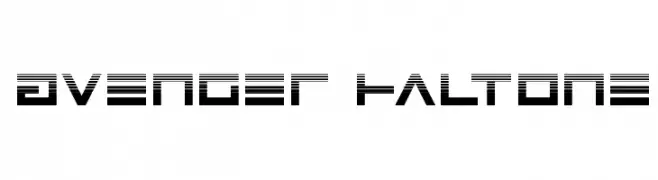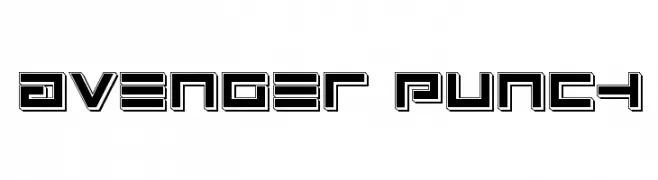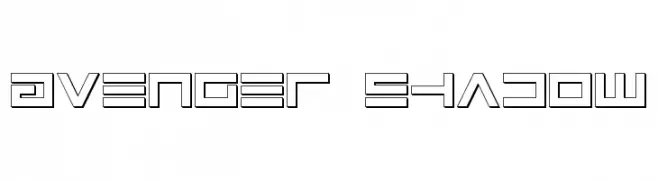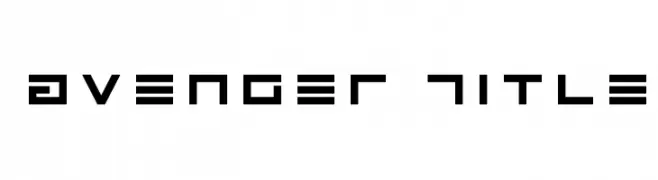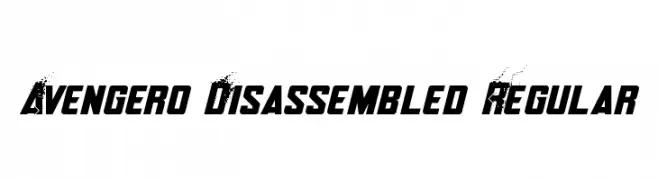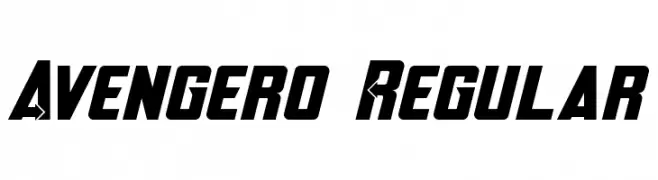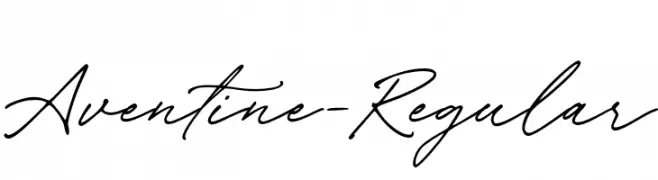
A geometric, angular font with a digital and futuristic aesthetic.
A fluid, cursive font with interconnected strokes, mimicking a handwritten signature.
A playful, hand-drawn font with bold, rounded characters.
A bold, geometric font with a futuristic and digital aesthetic.
A digital-style font resembling seven-segment displays, ideal for tech-themed designs.
A modern, geometric font with a digital, futuristic style.
A digital-inspired font with segmented, geometric characters.
A bold, impactful font with thick strokes and a modern-retro style.
A bold, rounded font with a modern, geometric style.
A geometric, angular font with a modern, digital style.
A bold, geometric font with a digital, tech-inspired design.
A bold, brush-style font with dynamic and expressive characters.
A modern, digital-inspired font with a pixelated texture and slanted characters.
A playful, handwritten font with a bold and casual style.
A playful, rounded font with a hand-drawn feel and consistent stroke thickness.
A playful, comic-style font with rounded, bold letterforms.
A bold, playful font with rounded edges and a dynamic slant.
A bold, slanted font with dynamic curves and a modern aesthetic.
A futuristic, digital-inspired font with bold, geometric shapes and rounded corners.
A digital, segmented font with a geometric, technical appearance.
A bold, geometric font with a digital, pixel-like design.
A bold, pixelated font with a retro digital aesthetic.
A pixelated, geometric font inspired by retro digital displays.
A geometric, tech-inspired font with rounded edges and uniform line thickness.
A geometric, digital-inspired font with a blocky, angular design and uniform stroke widths.